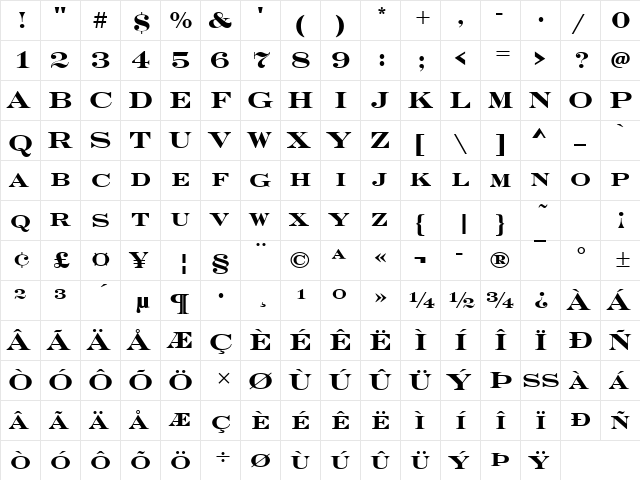
Engravers Becker Bold
Design Context for Engravers Becker Typeface
Engravers Becker takes a measured approach to typography — its balanced proportions and neutral character make it a reliable workhorse for both digital and print work. The heavy weight commands attention and anchors typographic hierarchies.